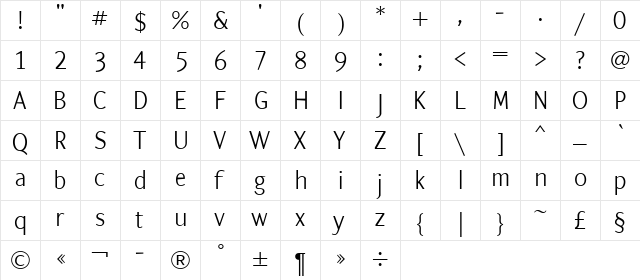
ArtemiusSans Light TT Regular
Design Context for ArtemiusSans Light TT Typeface
ArtemiusSans Light TT takes a measured approach to typography — its balanced proportions and neutral character make it a reliable workhorse for both digital and print work. The delicate stroke weight brings airiness and refinement to layouts.